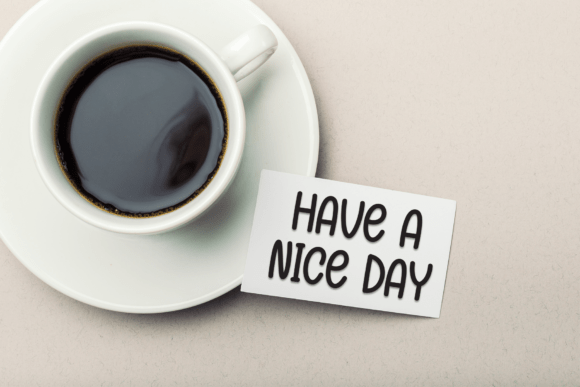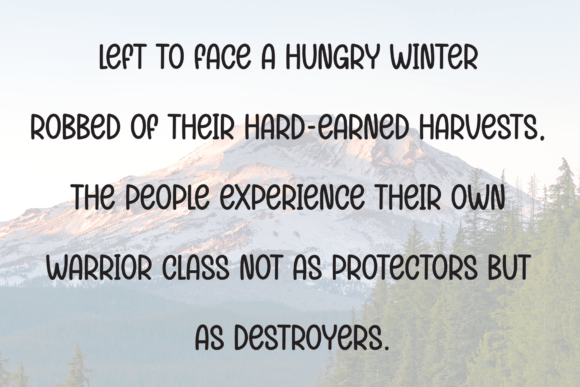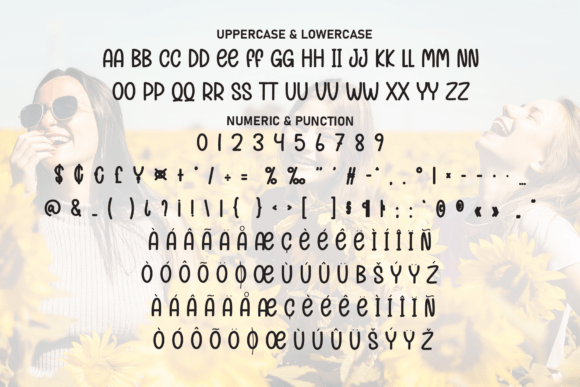
Introduction to Happy Harmony Font
Imagine you’re brainstorming ideas for a new social media campaign and suddenly, the perfect font pops into your head. It’s clean, friendly, and instantly conveys the carefree vibe you’re going for. That’s what happens when you stumble upon the Happy Harmony Font – a design treasure that elevates your creative project to the next level.
As a designer, you’re always on the lookout for that one special font that makes your work stand out. Happy Harmony Font is more than just a pretty face; it’s a high-quality design resource that adds clarity and charm to your projects. Whether you’re creating packaging, posters, or social media graphics, this font is a valuable addition to your toolkit.
What sets Happy Harmony Font apart is its approachable design, perfect for designers who crave a fresh, friendly vibe without sacrificing polish. With a clean and relaxed structure, this font is a must-have for any creative project. And the best part? It’s available for free download, making it an instant hit with designers who value high-quality, versatile design resources like Happy Harmony Font.
Key Features of Happy Harmony Font
- Unique, hand-crafted design elements for a personalized touch
- Suitable for a wide range of creative projects, from logos to brochures
Honest Review: Happy Harmony Font
I recently had the opportunity to work with the Happy Harmony Font, and I must say it’s been a pleasant experience. This free download has been a game-changer for my creative projects.
What works well: ✨ The Happy Harmony Font is incredibly versatile and can be used for a wide range of designs, from modern to classic. Its high quality and crisp lines make it perfect for various design applications. The transparent background is also a plus, allowing for seamless integration into any design resource.
- High quality and crisp lines
- Versatile and suitable for various design applications
However, I did encounter some limitations: ⚠️ The Happy Harmony Font is only available in a limited number of font styles, which might not be suitable for more complex design projects. Additionally, the font size and spacing can be a bit restrictive, which may require some adjustments.
Overall, the Happy Harmony Font is a solid design resource that I would recommend to anyone looking for a free and high-quality font. While it may have some limitations, its versatility and ease of use make it a great addition to any designer’s toolkit.
Happy Harmony Font
Tips for Getting the Most Out of Happy Harmony Font
When using Happy Harmony Font, be sure to use it in conjunction with other design elements, such as images and graphics, to create a cohesive and visually appealing design. You can also experiment with different font sizes and styles to add emphasis and interest to your design.
Happy Harmony Font is a versatile design resource that can be used in a variety of creative projects, including business cards, brochures, and website headers. Its high-quality design and transparent background make it perfect for use in free download templates and design projects.
Alternatives to Happy Harmony Font
Pacifico is a beautiful, high-quality script font perfect for creative projects that require a touch of elegance. It’s ideal for wedding invitations, branding, and other design elements that need a sophisticated look.
Compared to Happy Harmony Font, Pacifico has a more refined and cursive feel, making it suitable for projects that require a sense of luxury and sophistication.
Great Vibes is a free download font that offers a playful and fun vibe, making it perfect for creative projects that require a carefree atmosphere. It’s ideal for social media graphics, posters, and other design elements that need a lighthearted feel.
Compared to Happy Harmony Font, Great Vibes has a more energetic and lively feel, making it suitable for projects that require a sense of excitement and playfulness.